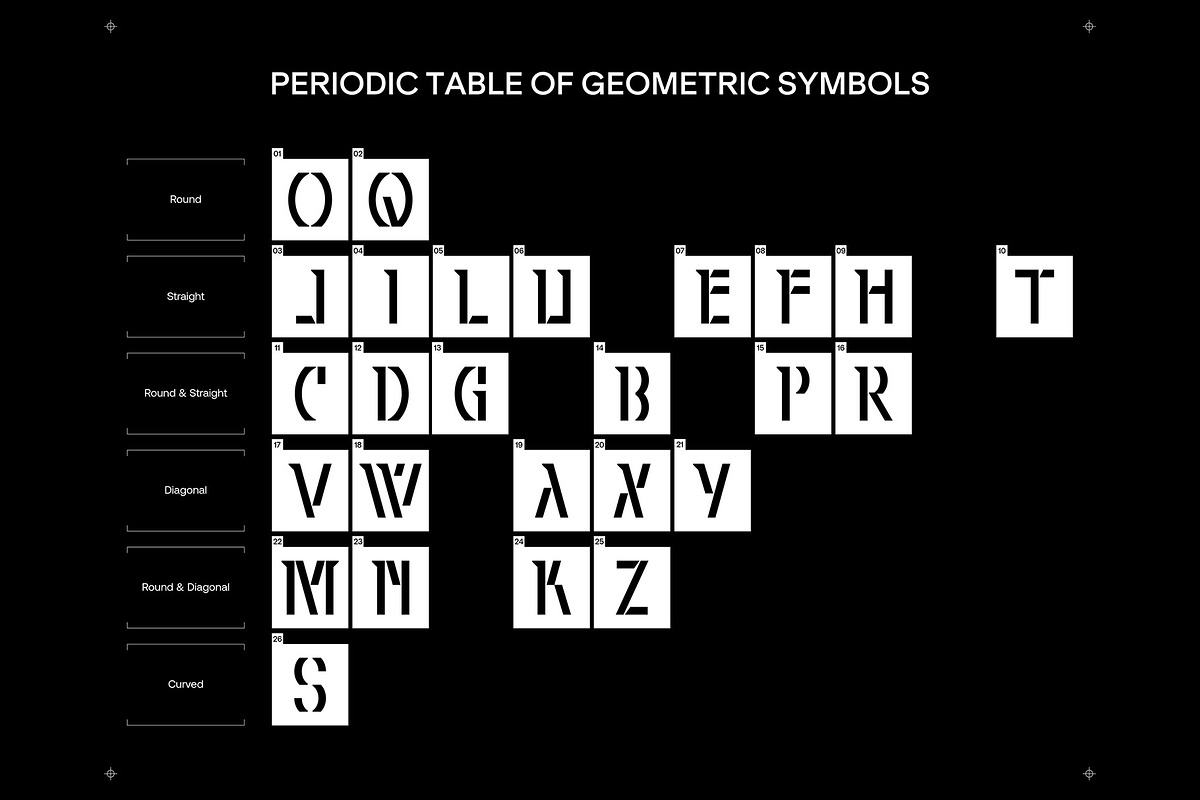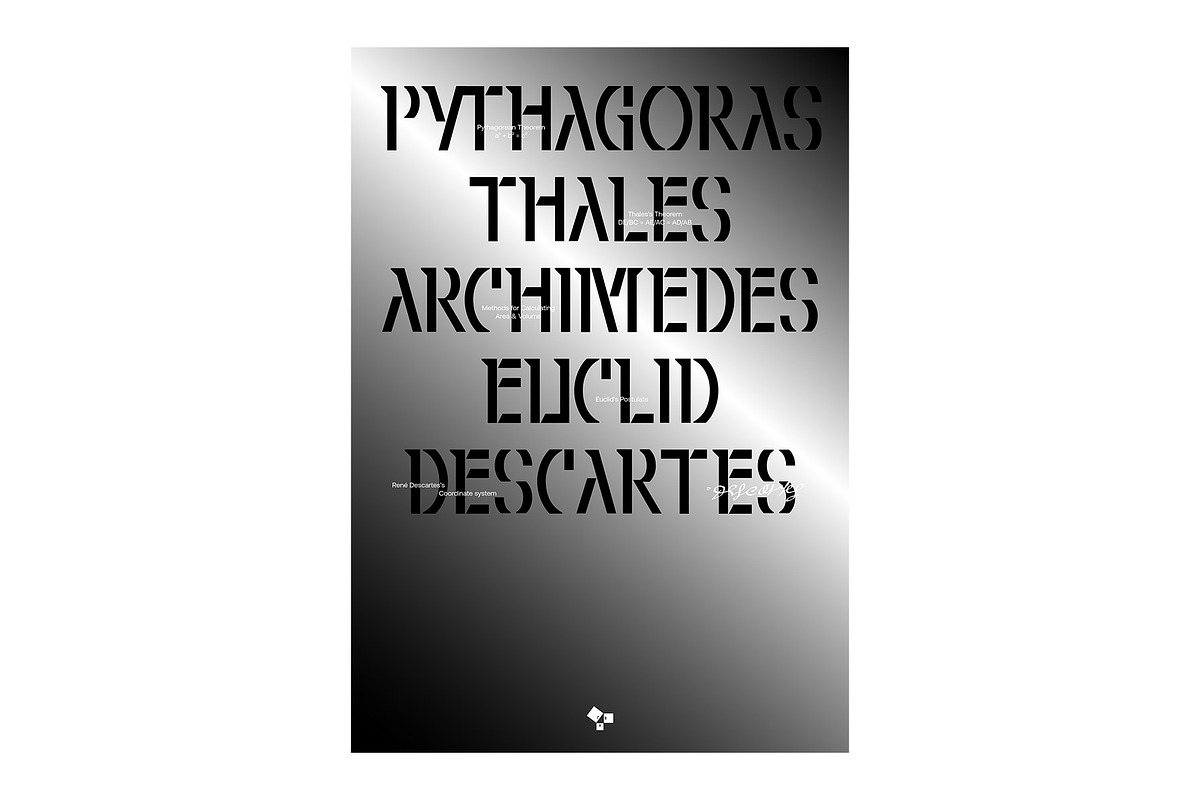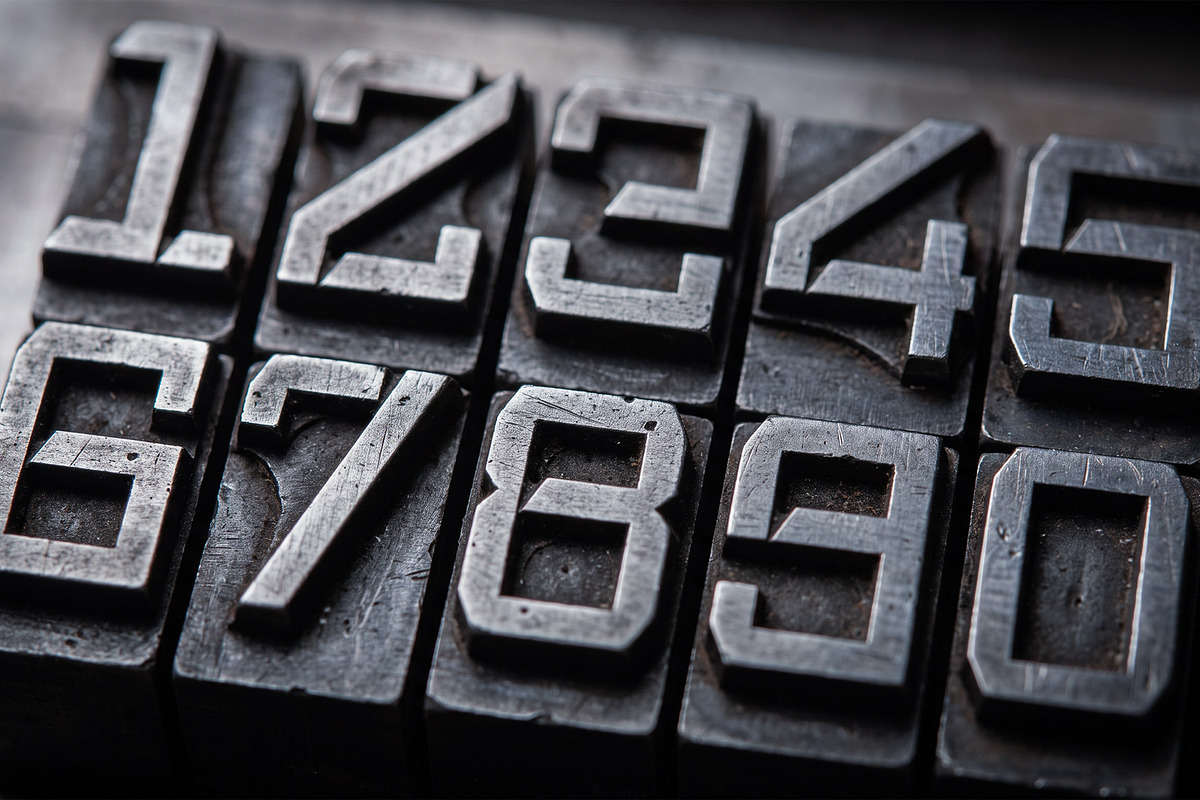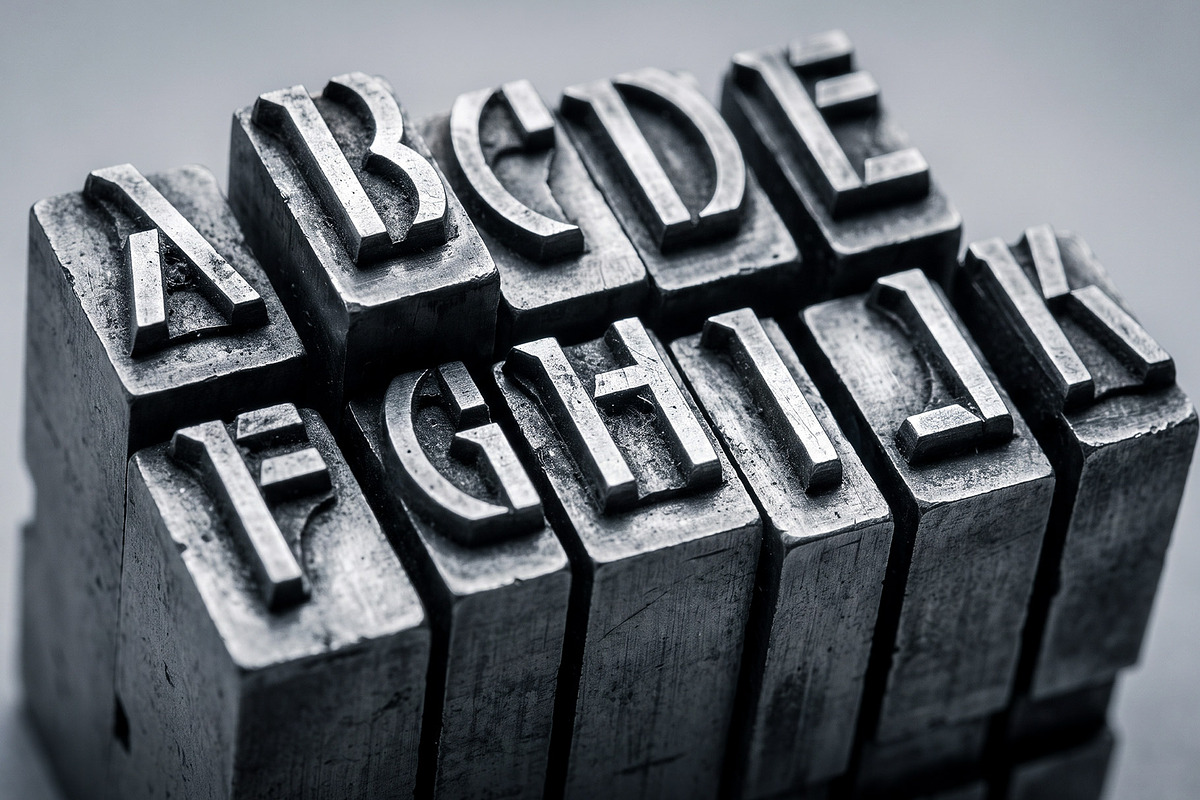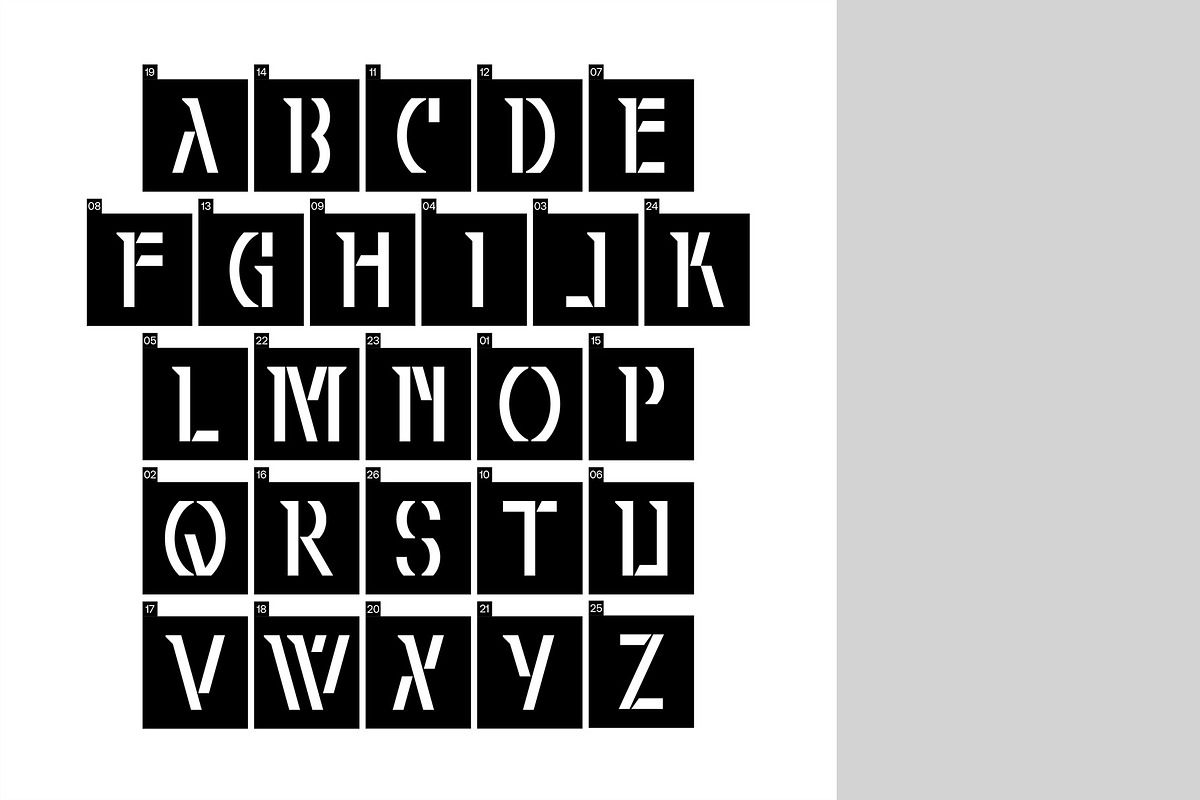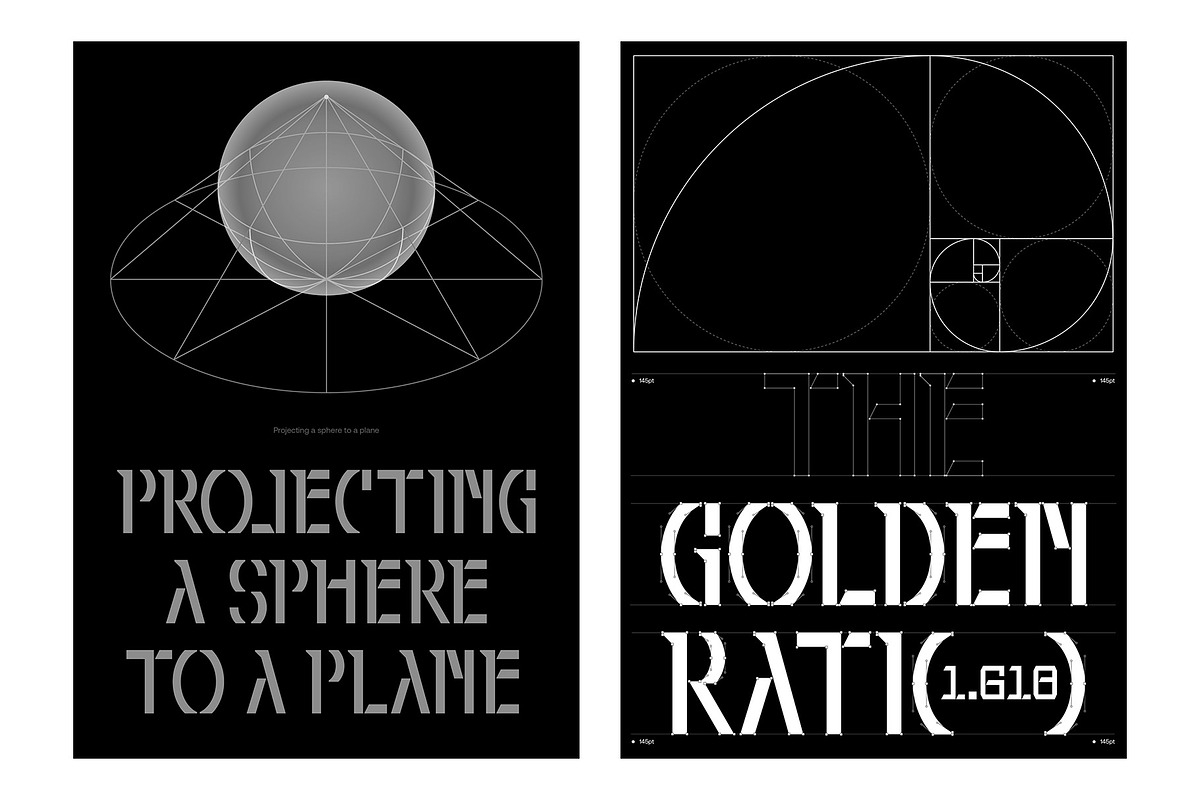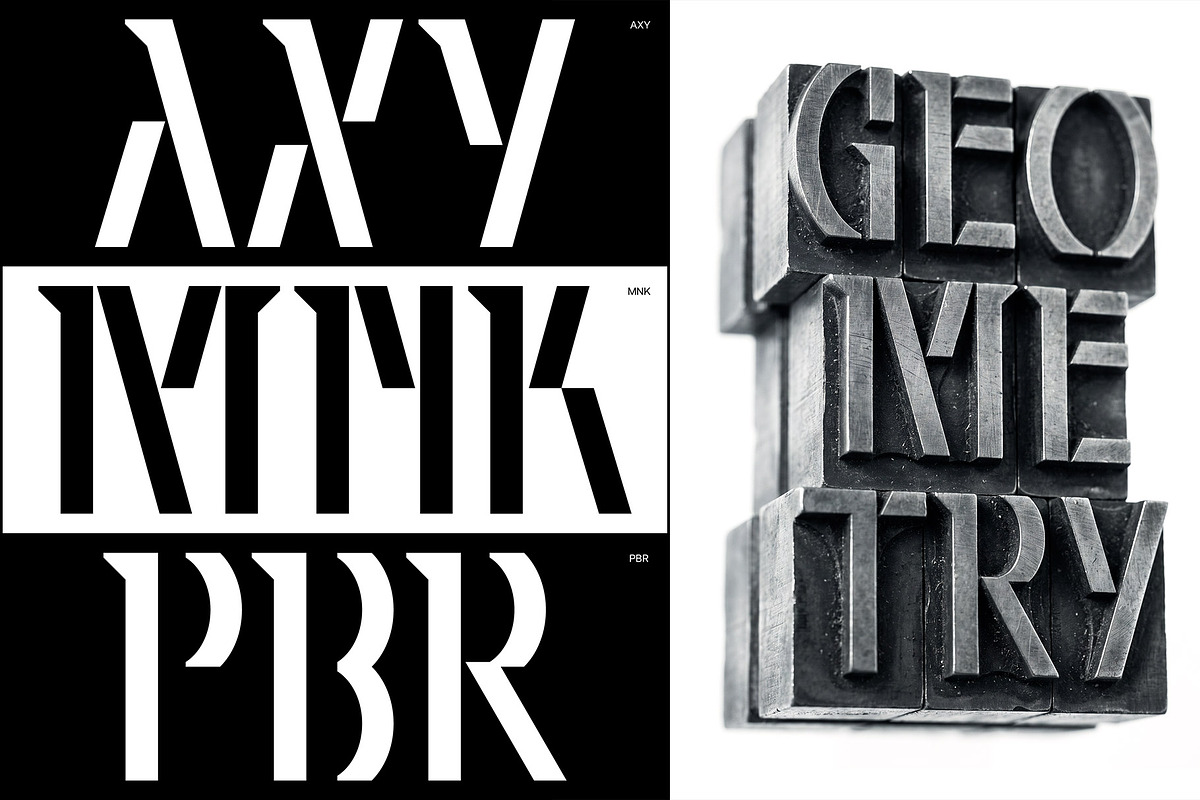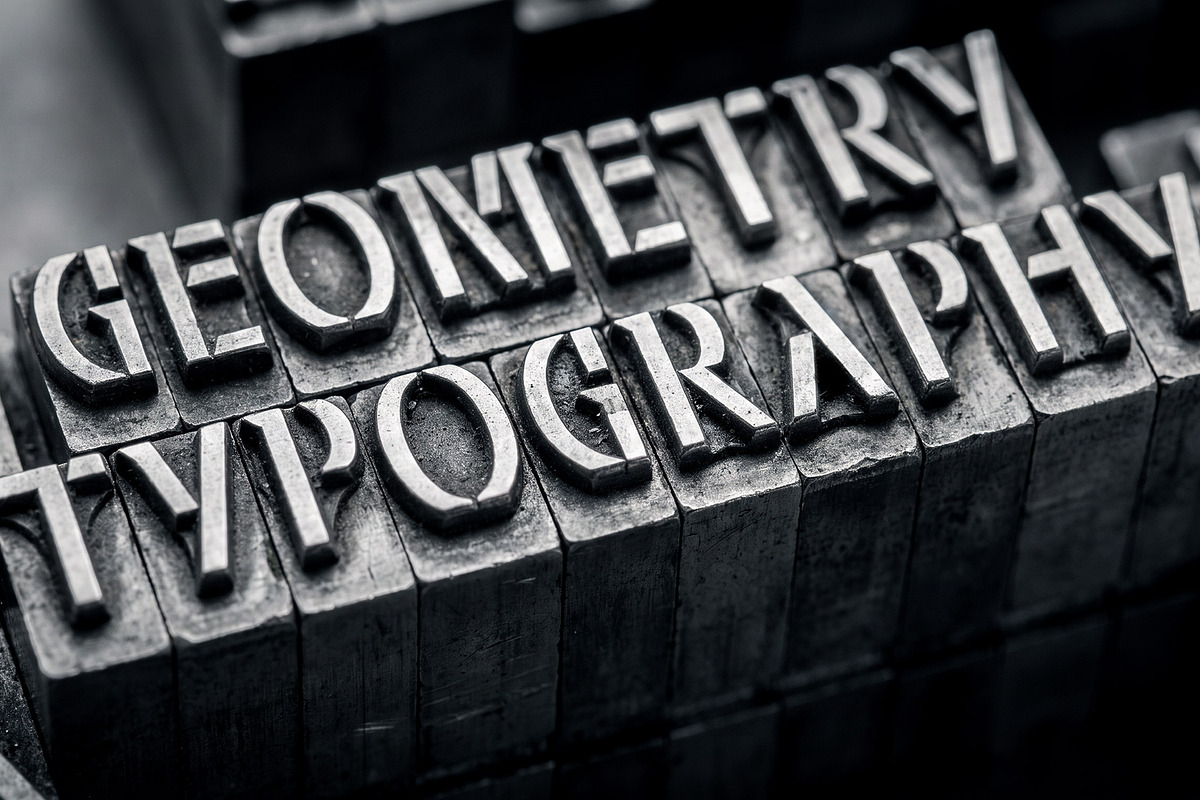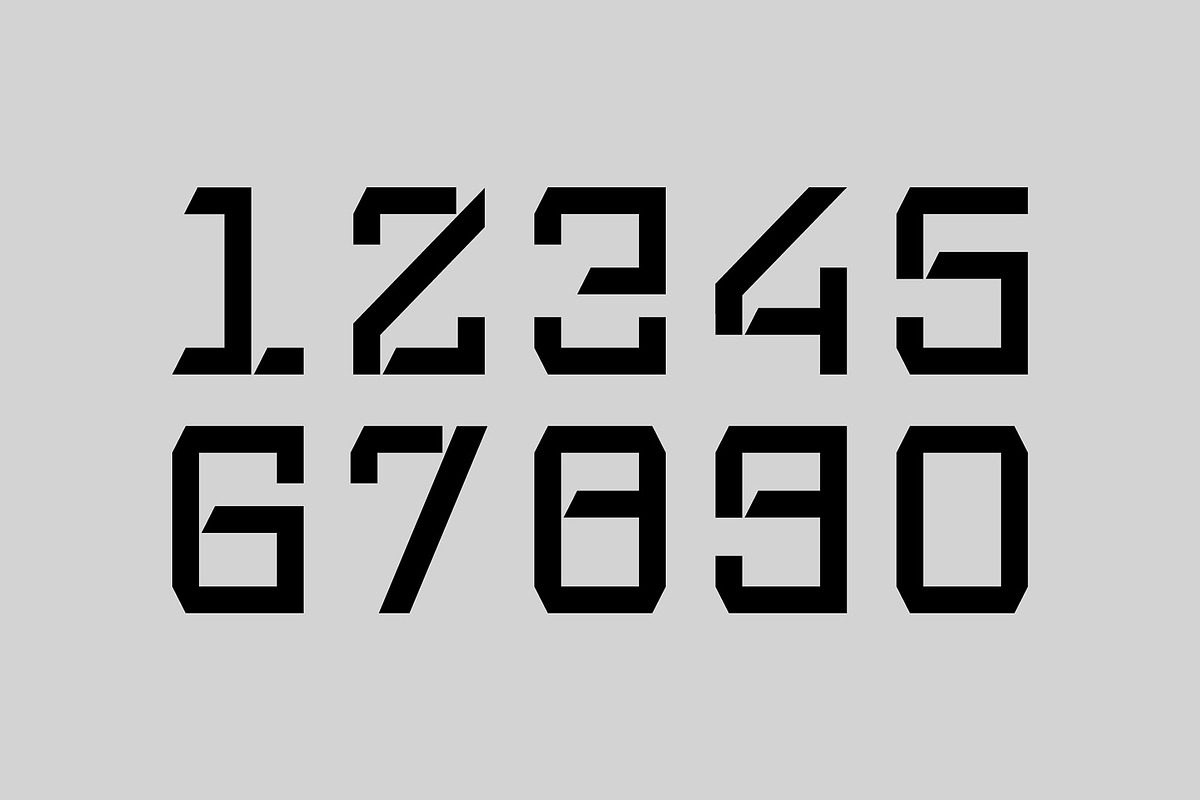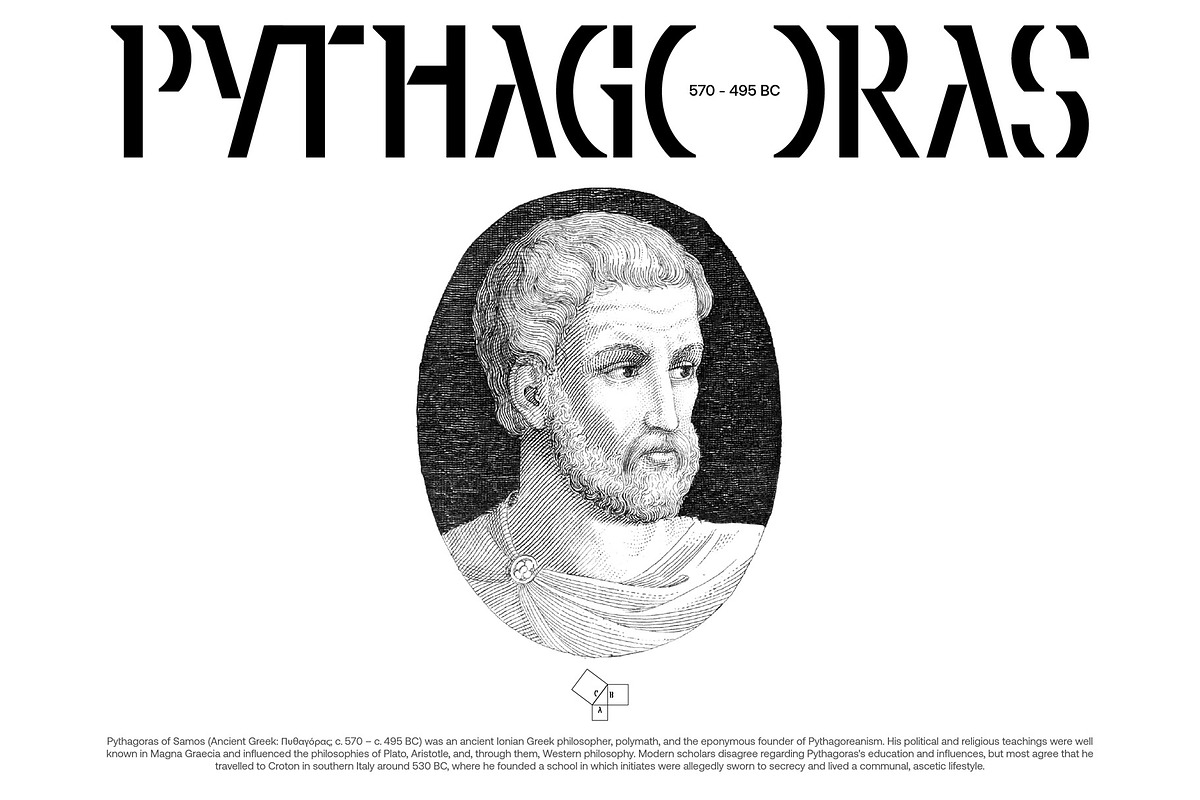
GEOMETRY FONT / HÌNH HỌC FONT
GEOMETRY FONT
GEOMETRY FONT is an original Geometric Stencil Typeface developed from the concept of Neutral Geometry - an exploration of pure geometric forms translated into a functional and distinctive typographic system.
The typeface is constructed from the most fundamental visual elements: circles, straight lines, diagonals, and curves. By reducing each character to these essential forms, the design creates a consistent relationship between structure, proportion, rhythm, and negative space.
The stencil treatment introduces intentional cuts and interruptions within the letterforms, allowing the characters to maintain their geometric integrity while creating a strong and recognizable visual language. Rather than adding decorative elements, these openings become an essential part of the construction, giving GEOMETRY FONT its technical, contemporary, and experimental character.
Designed entirely from scratch, GEOMETRY FONT explores the balance between neutrality and personality — a typeface that appears systematic and rational at first glance, yet reveals a unique character through its proportions, geometric tension, and use of negative space.
Its bold and structured appearance makes it particularly suitable for branding, visual identity, posters, editorial design, packaging, signage, fashion, architecture, technology, automotive, sports, and industrial-oriented applications. It can also work effectively for logos, headlines, campaign graphics, album artwork, product labels, exhibition graphics, and digital interfaces where a strong geometric presence is desired.